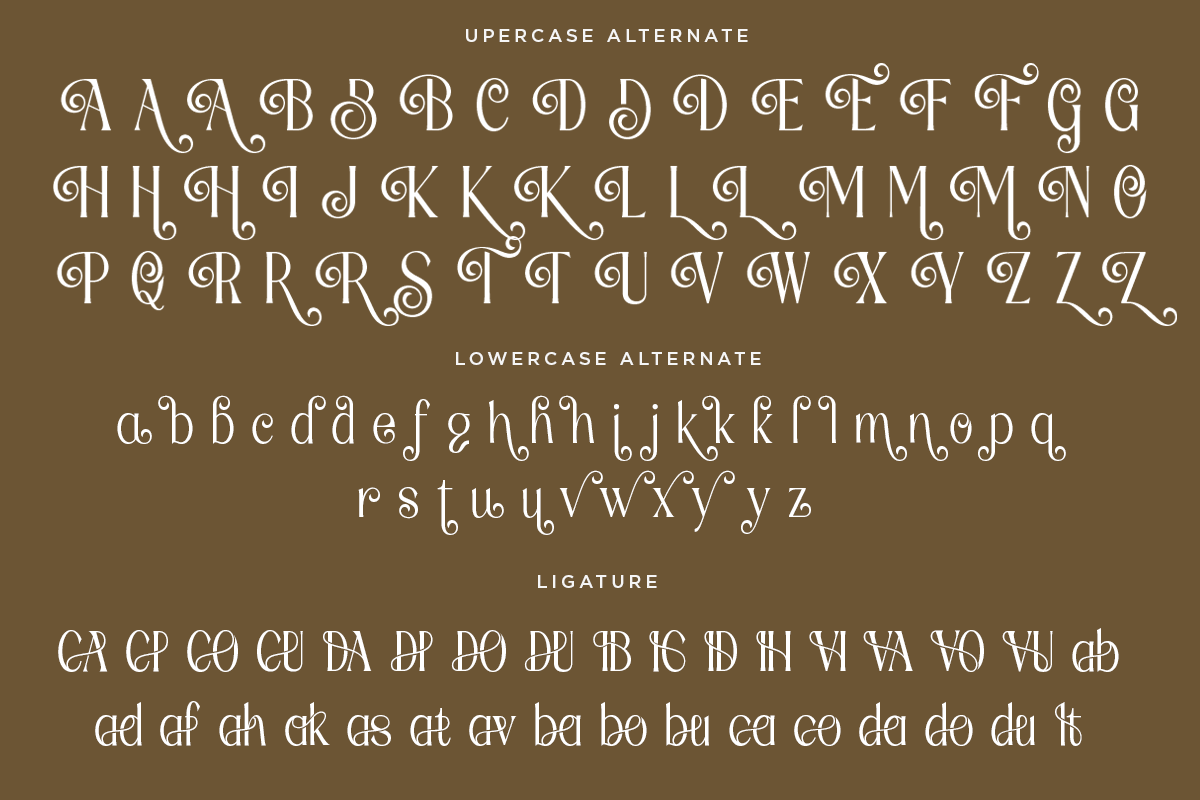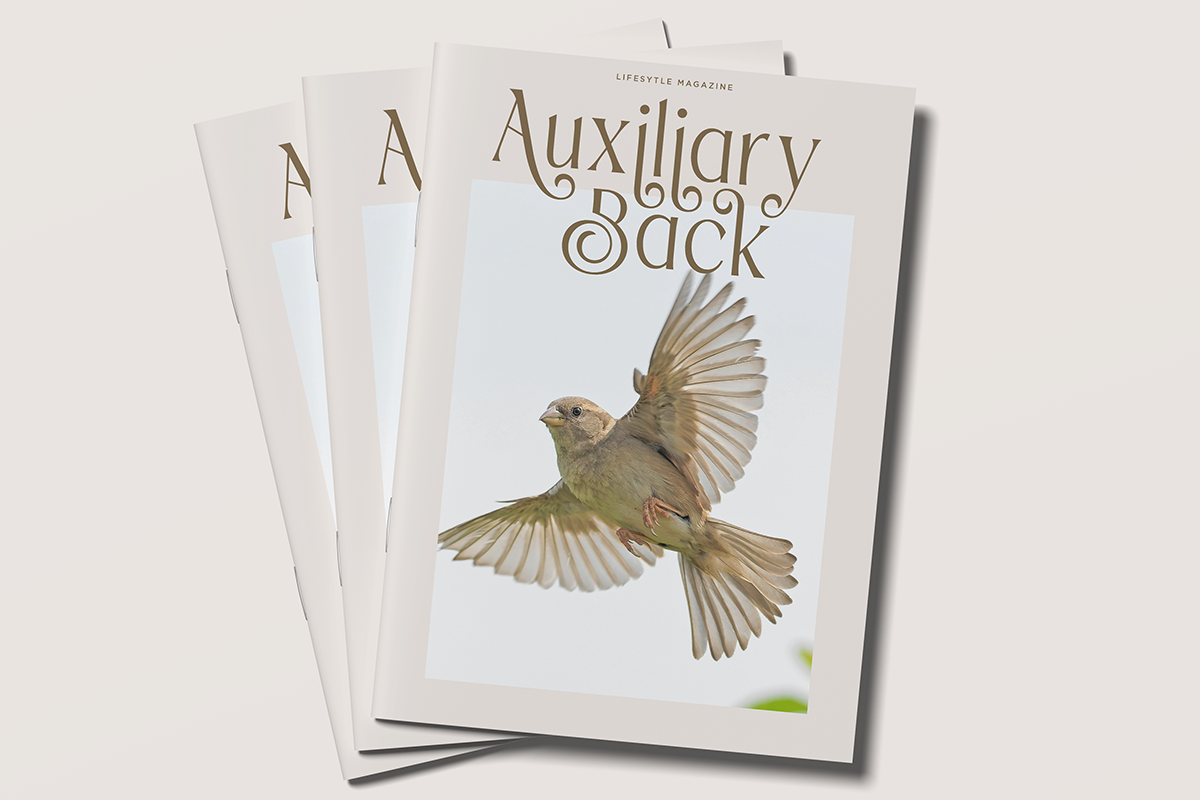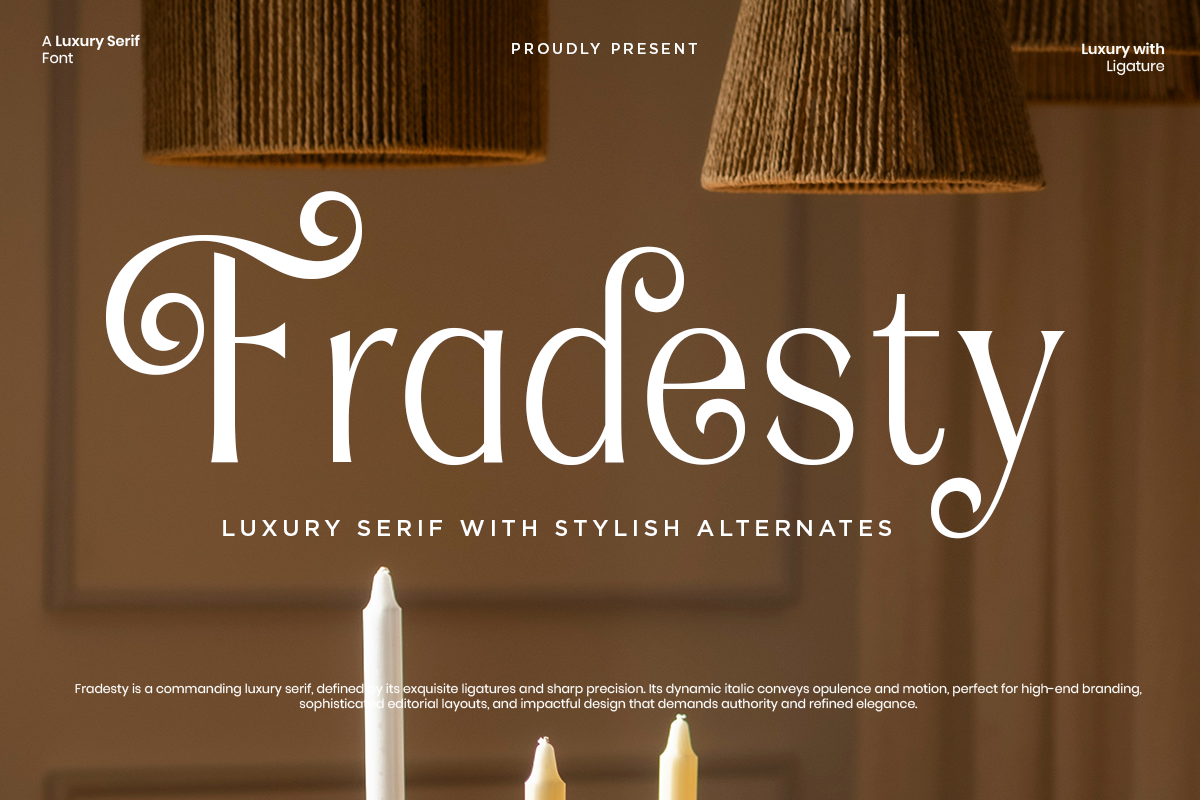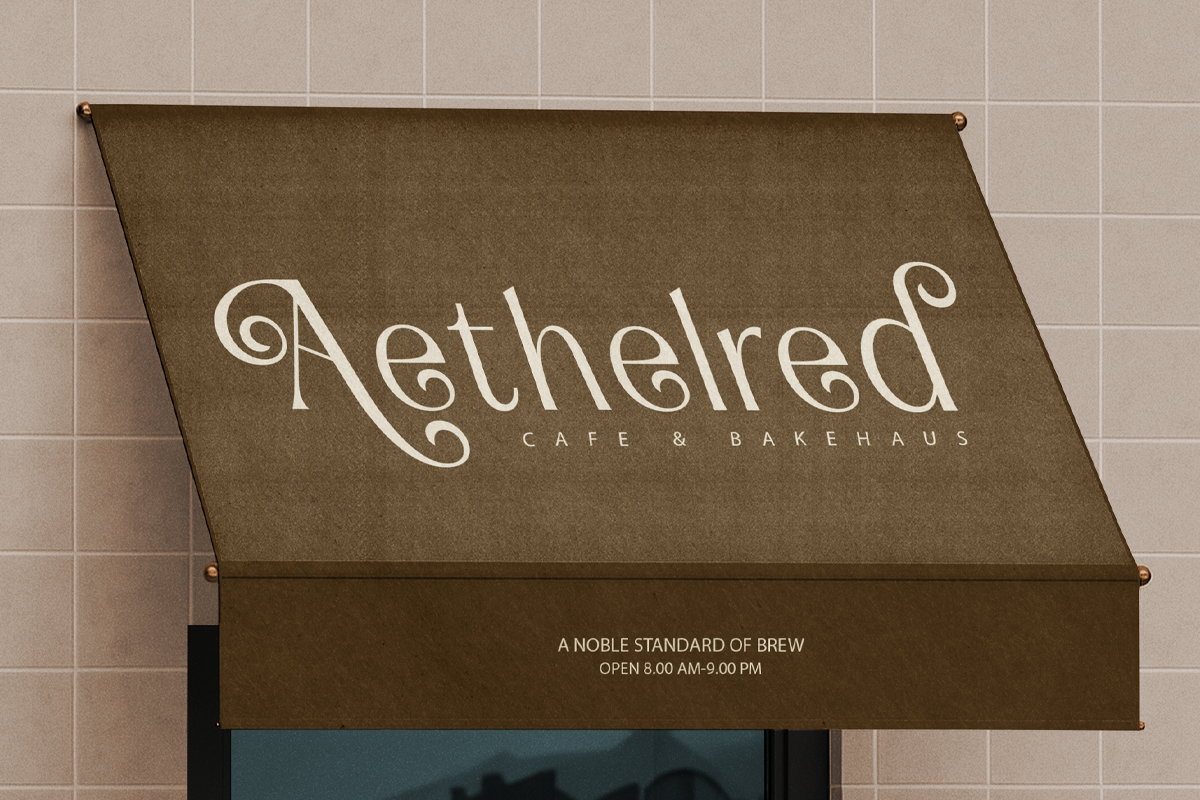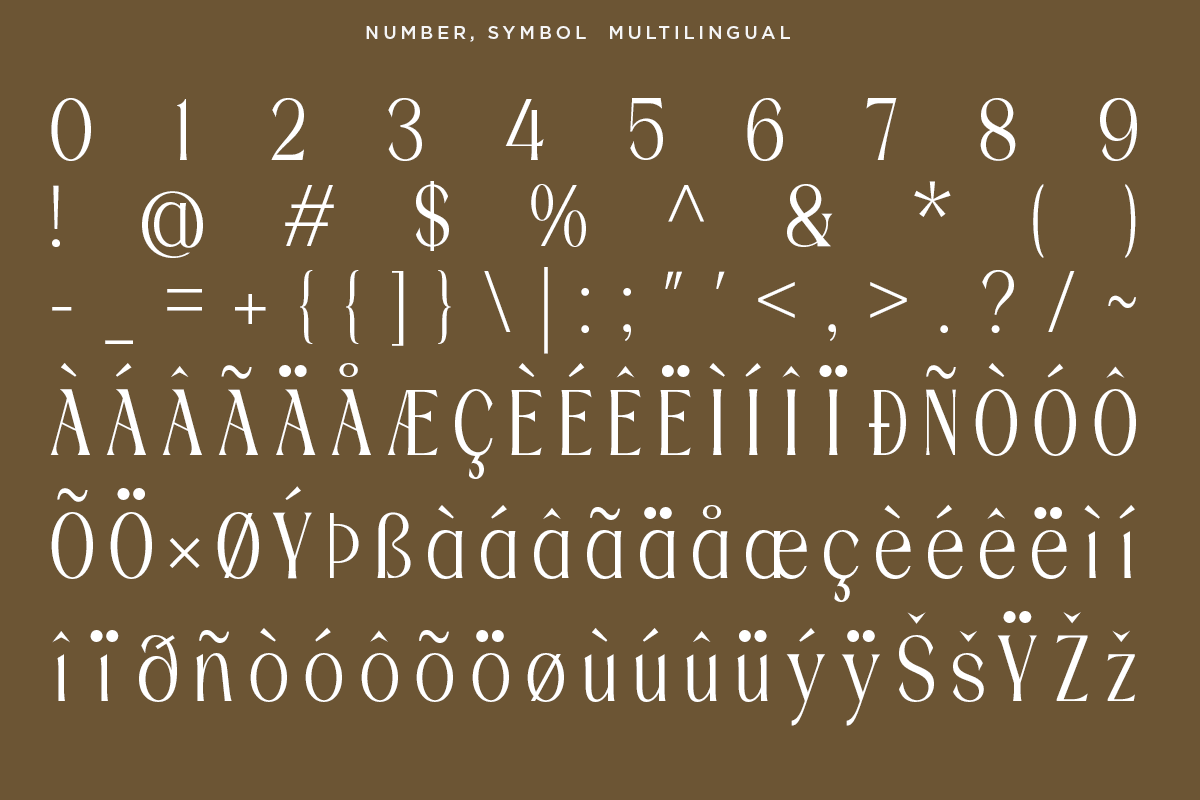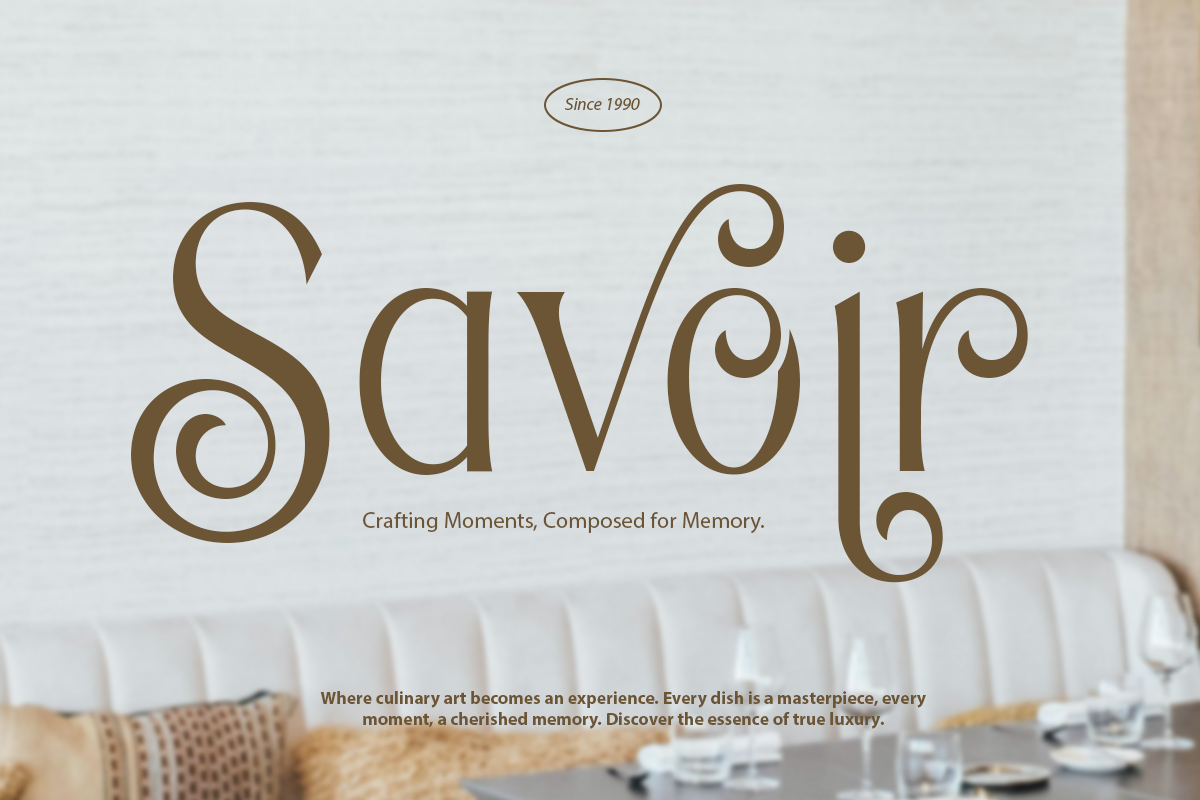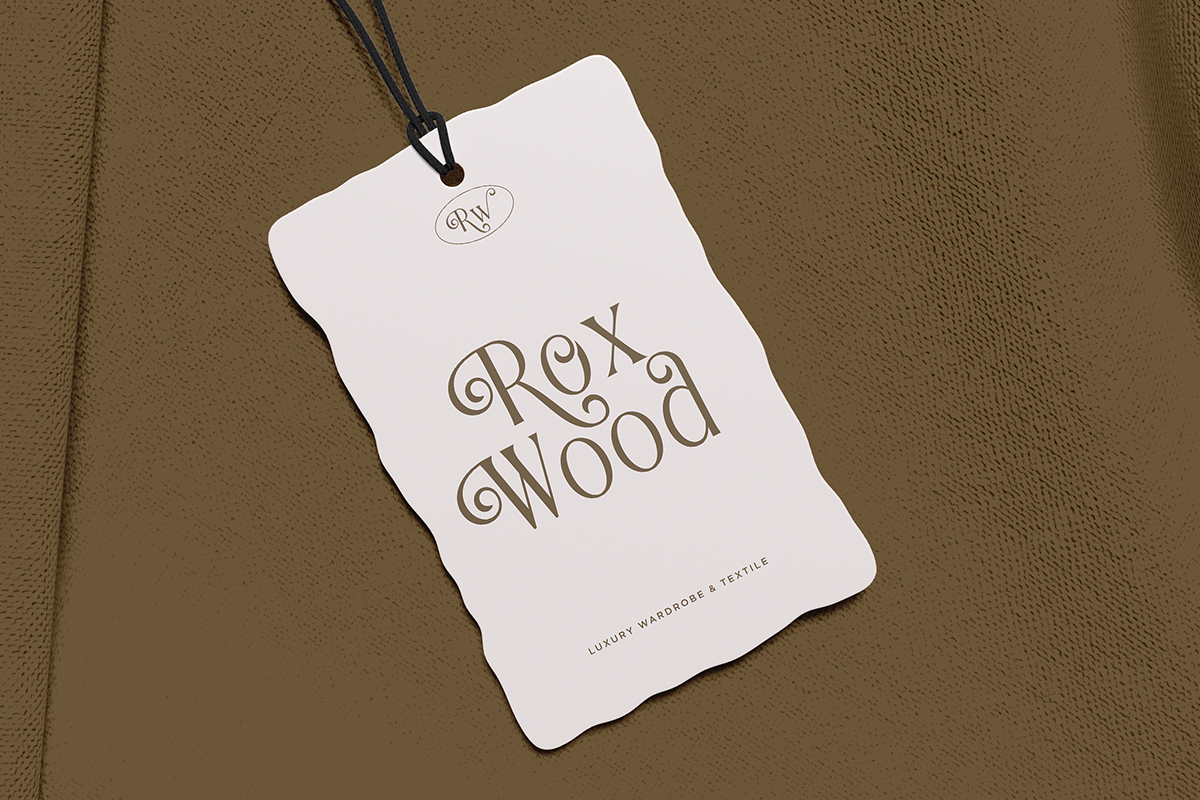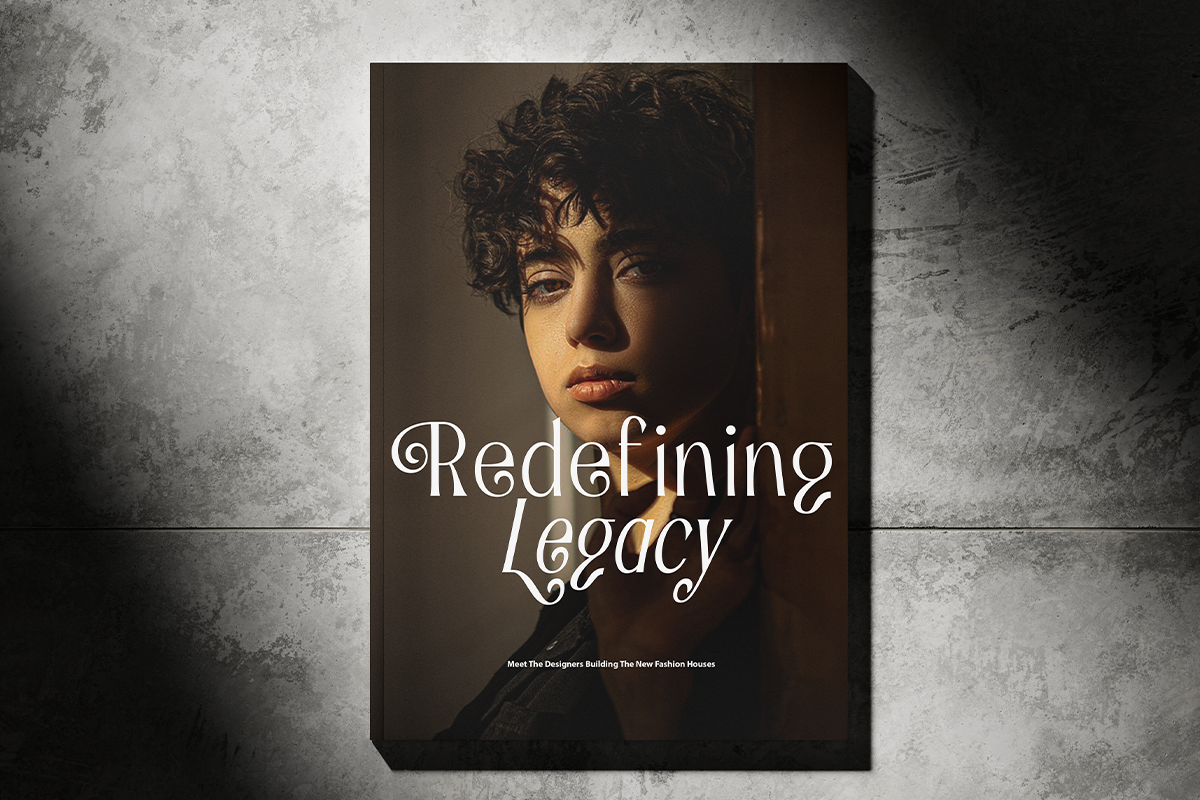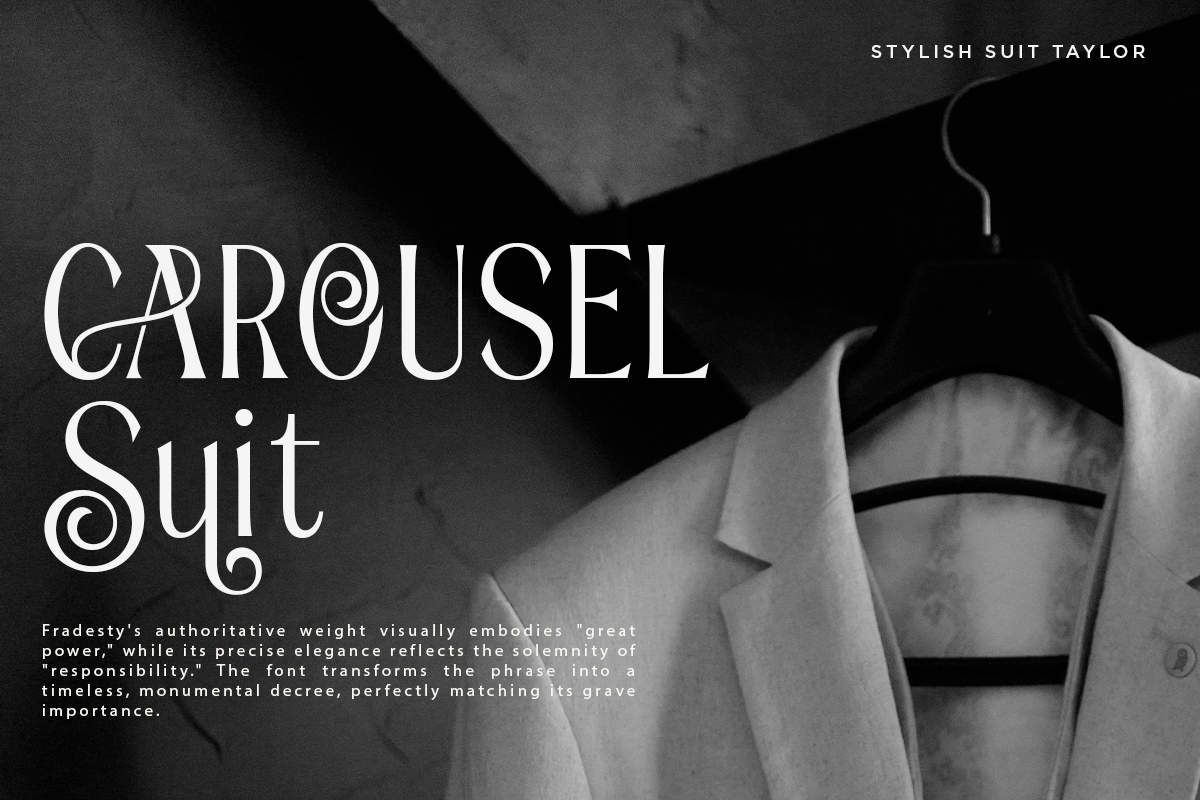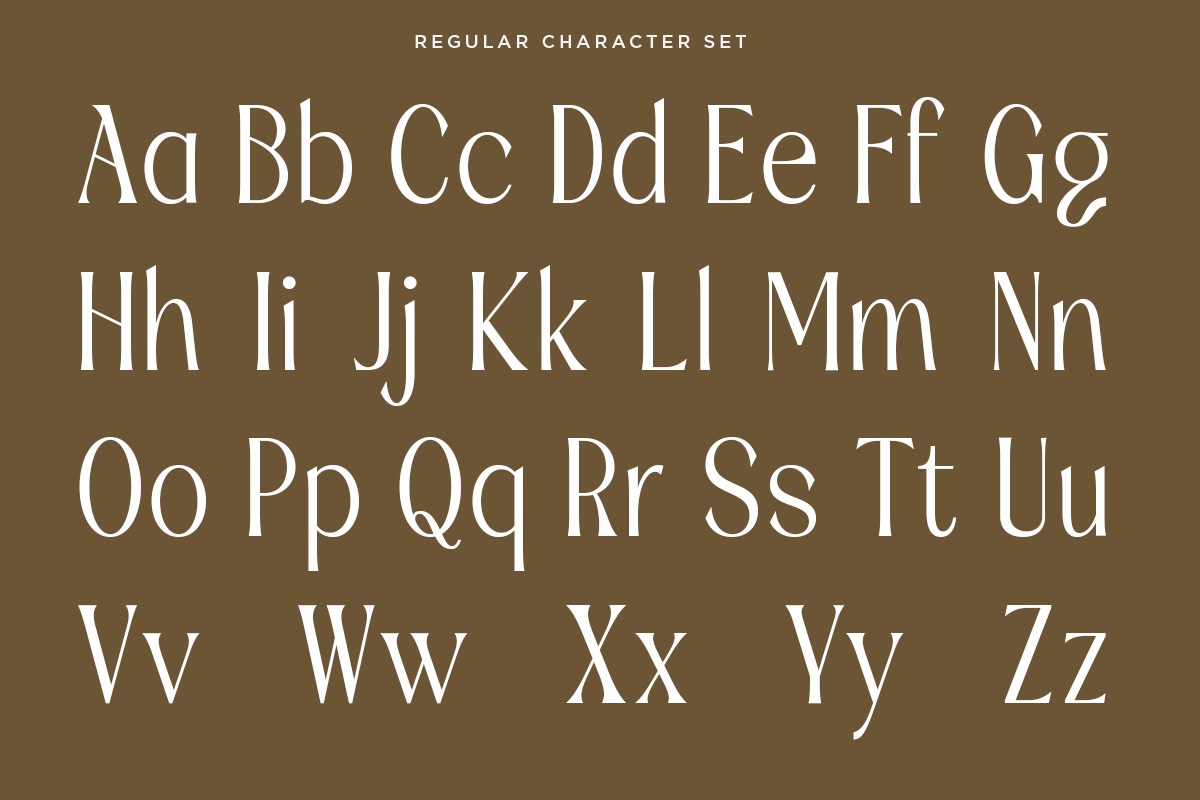
Fradesty - Luxury Serif Font
Fradesty is an elegant and commanding luxury serif designed for high-end branding, editorial layouts, and refined visual storytelling. Featuring sophisticated ligatures, graceful curves, and stylish alternates, Fradesty blends classic serif charm with a modern, upscale touch — perfect for those who want to make a bold yet classy statement.
- Alternates & ligatures